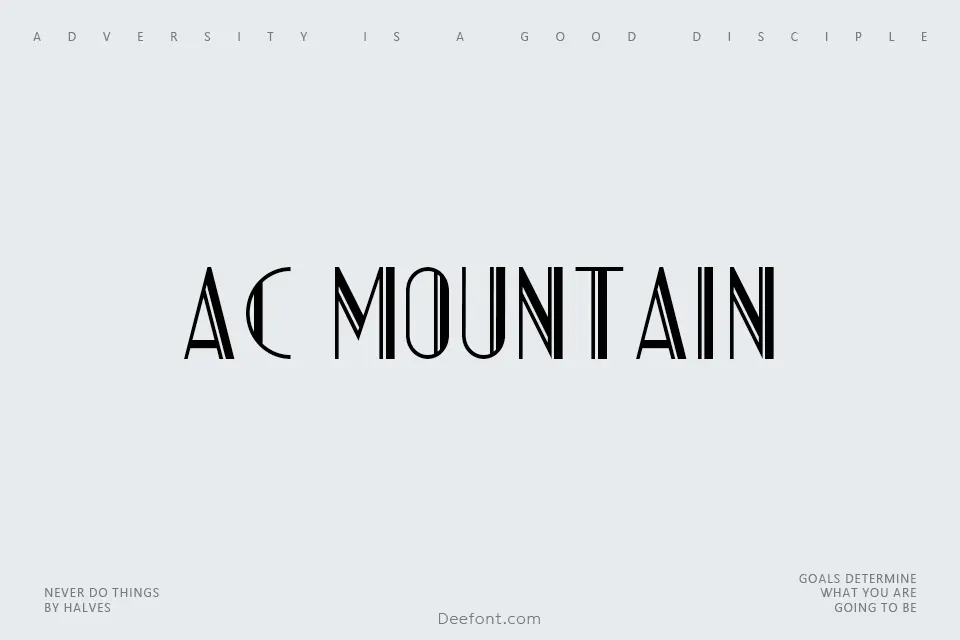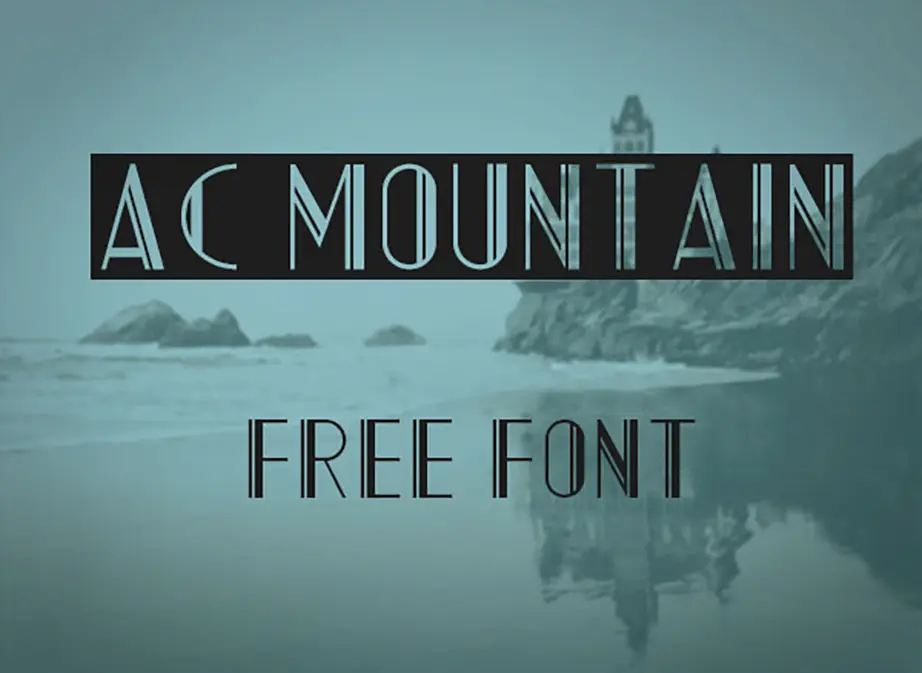
AC Mountain Font
AC Mountain is a distinctive display typeface. Designed for both personal and professional projects, this versatile font works exceptionally well for branding, logos, headlines, packaging, and posters. With its bold, striking appearance and adaptable design, AC Mountain captures attention while maintaining readability. Available in both regular and inverted weight variations, the font offers designers flexibility to create impactful visual content across various creative disciplines and design applications.